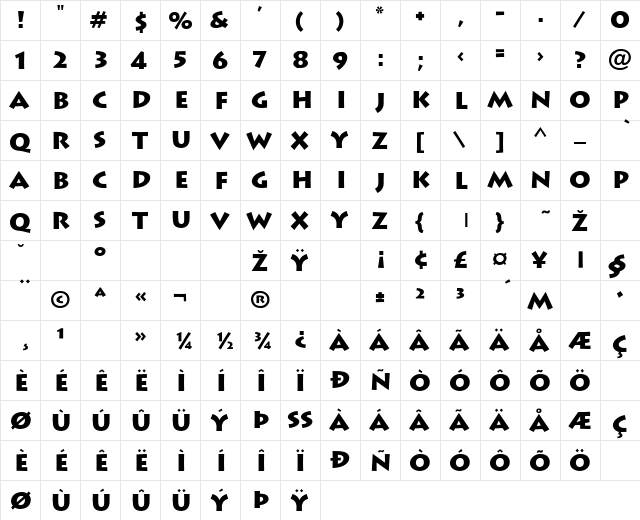
Lithograph Bold
Design Context for Lithograph Typeface
Lithograph is a composed and adaptable typeface that performs quietly and consistently across a wide range of design contexts. Its bold stroke weight gives it real presence on the page.